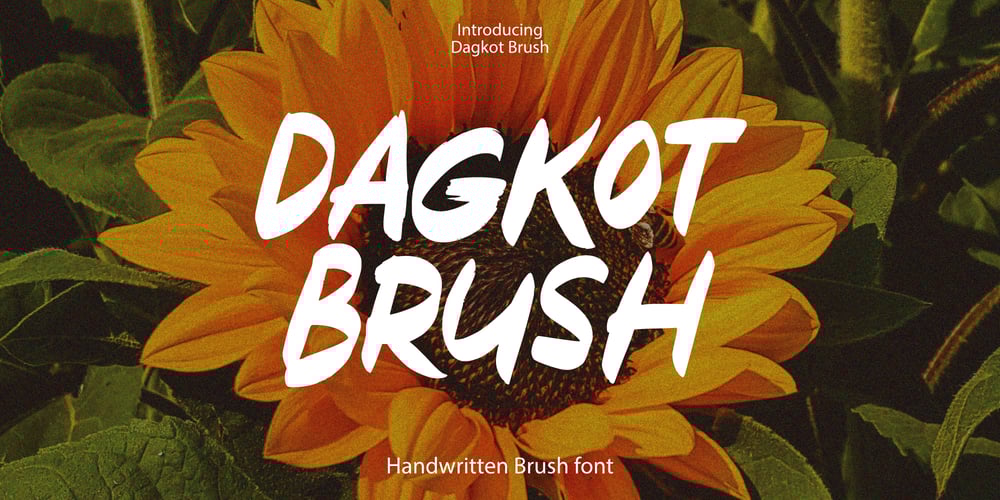
Dagkot Brush Font Family was designed by Dzulka Elfira and published by Tebaltipis Studio. Dagkot Brush contains 1 styles and family package options. Dagkot Brush is a typeface with personality. You can use it as a logo, badge, insignia, packaging, headline, poster, etc The alternative characters in this font were divided into several OpenType features such as Stylistic Alternates, Stylistic Sets, and Ligature. The OpenType features can be accessed by using OpenType program such as Adobe Illustrator, Adobe Photoshop, and Adobe InDesign.